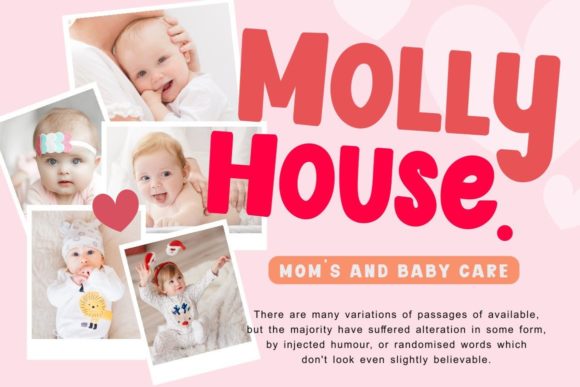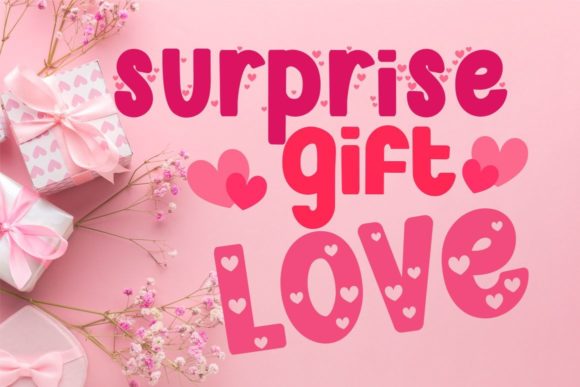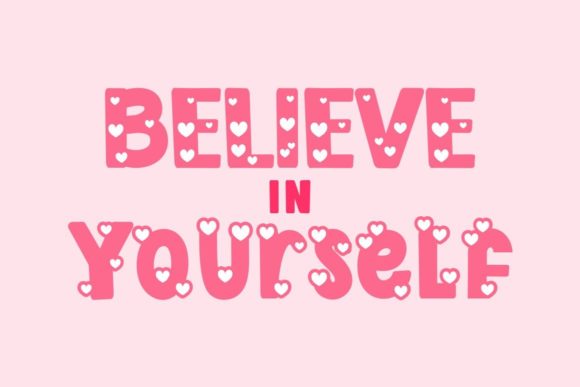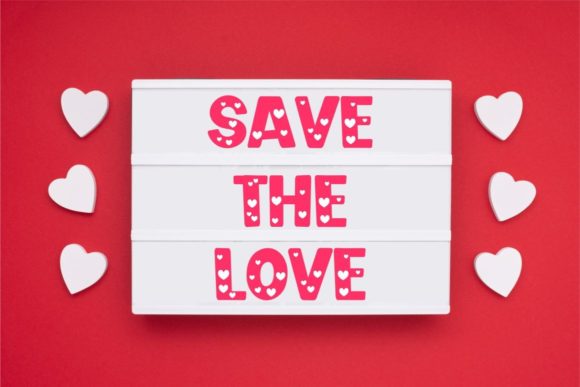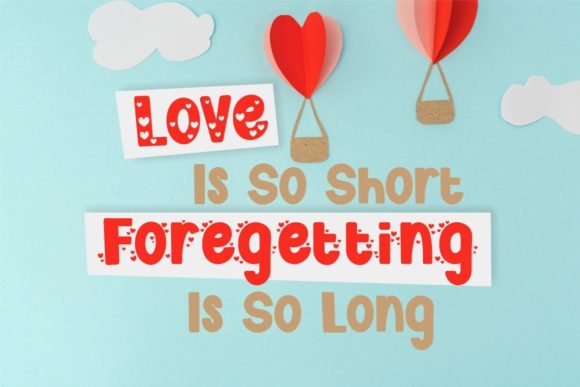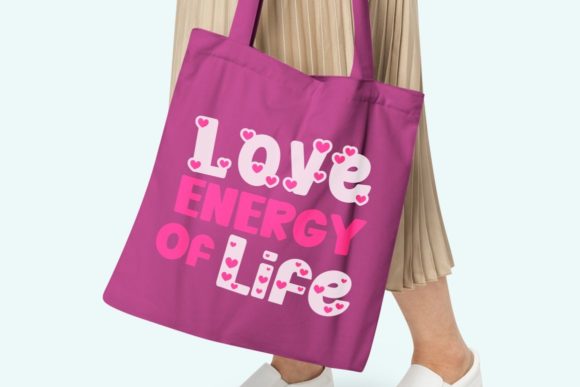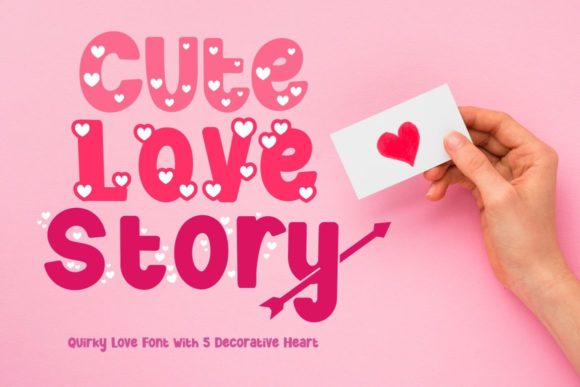
Cute Love Story Font: The Perfect Addition to Your Design Collection
Are you a designer or crafter looking for a font that can add a touch of joy and playfulness to your creations? Look no further than the Cute Love Story font! This fun and adaptable family font is perfect for a wide range of design projects, from cartoon-related designs to children’s games and more.
What Makes Cute Love Story Font So Special?
Cute Love Story is a unique and charming font that is sure to capture the hearts of designers and crafters alike. Its fun and joyful vibe makes it an excellent choice for projects that require a lighthearted and playful touch. The font is highly adaptable, allowing you to use it in a variety of contexts, from digital designs to print materials.
Key Features of Cute Love Story Font
- Fun and Joyful Design: The Cute Love Story font features a playful and cheerful design that is sure to add a smile to anyone’s face.
- Adaptable: This font is highly versatile and can be used in a wide range of design projects, from children’s games to cartoon-related designs.
- Easy to Read: The font is clear and easy to read, making it perfect for use in digital and print materials.
- Extensive Character Set: The Cute Love Story font features an extensive character set, including uppercase and lowercase letters, numbers, and punctuation marks.
Cute Love Story font is an excellent choice for designers and crafters who want to add a personal touch to their creations. Whether you’re designing a logo, creating a children’s book, or crafting a handmade card, this font is sure to bring a touch of joy and whimsy to your project.
Use Cases for Cute Love Story Font
- Cartoon-Related Designs: The Cute Love Story font is perfect for designing cartoon characters, logos, and other materials.
- Children’s Games: This font is an excellent choice for designing children’s games, including puzzles, activity sheets, and more.
- Handmade Crafts: The Cute Love Story font is a great choice for crafters who want to add a personal touch to their handmade creations, such as cards, gift tags, and more.
- Digital Designs: This font is also perfect for digital designs, including social media graphics, blog posts, and more.
Why Choose Cute Love Story Font?
There are many fonts available that claim to be fun and playful, but Cute Love Story font stands out from the crowd. Here are just a few reasons why:
- Unique Design: The Cute Love Story font features a unique and charming design that is sure to capture the hearts of designers and crafters.
- High-Quality: This font is of high quality, making it perfect for use in professional design projects.
In conclusion, the Cute Love Story font is an excellent addition to any design collection. Its fun and joyful vibe, adaptability, and ease of use make it a great choice for a wide range of design projects. Whether you’re a designer or crafter, this font is sure to bring a touch of joy and whimsy to your creations.